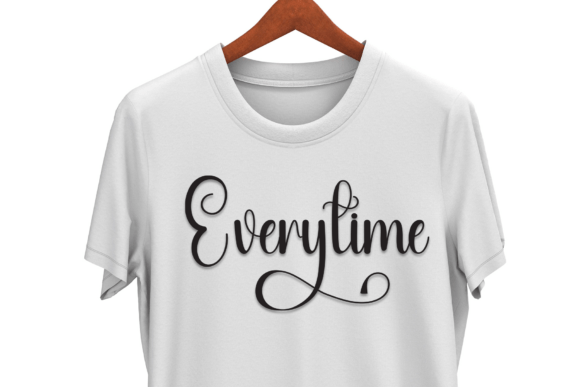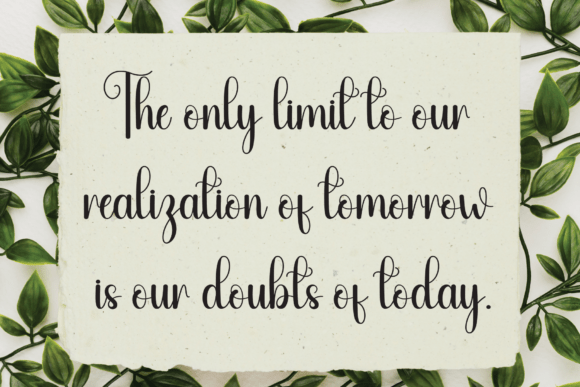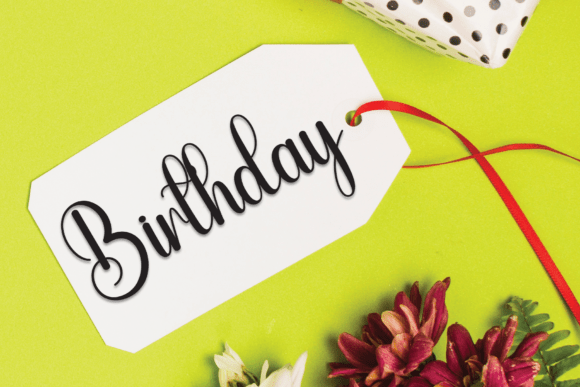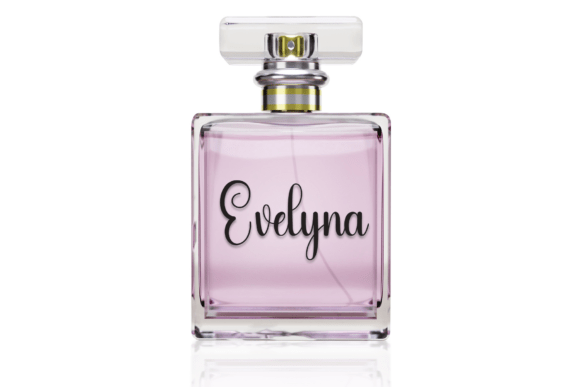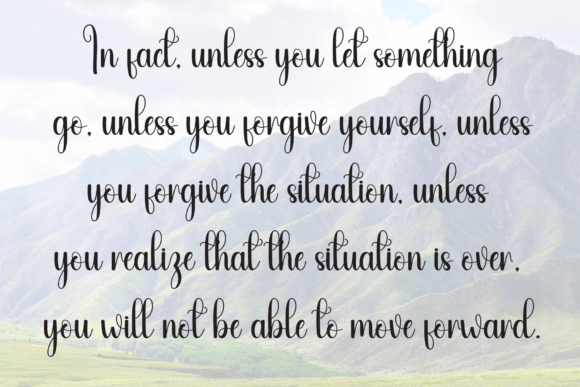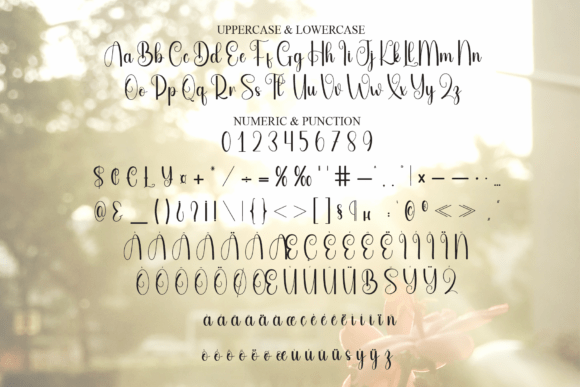
A Moment of Inspiration
As you sit at your desk, pen in hand, trying to find the perfect words to express your love or excitement, you realize that sometimes it’s not just about what you say, but how you say it. A beautifully crafted font can make all the difference in conveying your emotions and setting the tone for your message. And that’s where Bright Sunday Font comes in – a charming script handwritten font that brings a personal, elegant touch to your designs.
With its smooth curves, natural flow, and slightly casual style, Bright Sunday Font feels like it was written with care, making it ideal for wedding invitations, personal branding, greeting cards, and lifestyle blog graphics. Its versatility shines in both romantic and modern aesthetics, making it a valuable addition to any designer’s toolkit.
Bright Sunday Font Key Features
- Unique Characteristics: Bright Sunday Font features a unique, modern design with a blend of geometric and organic elements, creating a visually striking and eye-catching effect.
- Character Set: The font includes a comprehensive character set, including uppercase and lowercase letters, numerals, punctuation marks, and special characters, making it suitable for use in a variety of languages.
Bright Sunday Font Review
I recently had the chance to work with the Bright Sunday Font, and overall, I’m quite pleased with the result. ✨ Here are some aspects that really stand out:
- The font’s clean and modern design is perfect for a variety of projects, from branding to digital interfaces.
- The font’s versatility allows it to be used in both print and web-based applications.
- The font’s legibility is excellent, making it easy to read even at smaller font sizes.
However, as with any font, there are some limitations to consider: ⚠️
- The font may not be suitable for projects that require a more formal or traditional look.
- The font’s bold weight may not be as bold as some users might expect.
Overall, I think the Bright Sunday Font is a solid choice for designers looking for a clean and modern font. While it may not be perfect for every project, it’s a great option to consider. With a little creativity, I think this font can really shine and add a unique touch to any design.
For best results, use Bright Sunday Font for headings and titles, as its bold and playful style works well for emphasizing important text.
For best results, use Bright Sunday Font for titles, headings, and other text elements where you want to add a touch of whimsy and playfulness.
For best results, use Bright Sunday Font for headings, titles, and other text elements where you want to add a touch of fun and personality.
Bright Sunday Font is ideal for:
- Summer-themed designs and projects.
- Children’s books and educational materials.
- Playful advertisements and marketing materials.
- Wedding invitations and party decorations.
Alternatives to Bright Sunday Font
Great Vibes Font is a modern, elegant script font perfect for creating a sophisticated and eye-catching design. It’s ideal for use in branding, packaging, and advertising where a stylish and elegant look is required.
Great Vibes Font is similar to Bright Sunday Font in terms of its elegant and stylish nature, but it has a more refined and polished look. While Bright Sunday Font has a more playful and quirky feel, Great Vibes Font is more formal and sophisticated.
Pacifico Font is a beautiful, elegant script font with a relaxed and casual feel. It’s perfect for use in branding, packaging, and advertising where a laid-back and friendly tone is required.
Pacifico Font is similar to Bright Sunday Font in terms of its relaxed and casual nature, but it has a more beachy and tropical feel. While Bright Sunday Font has a more urban and modern feel, Pacifico Font is more laid-back and easy-going.